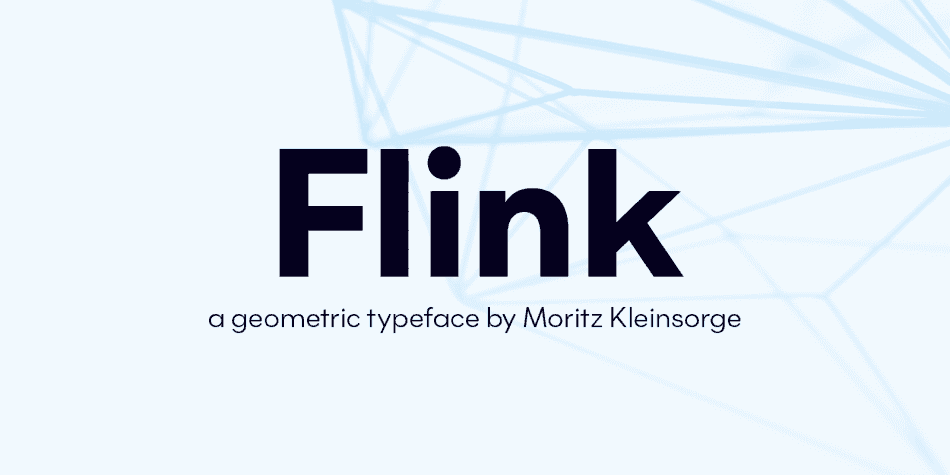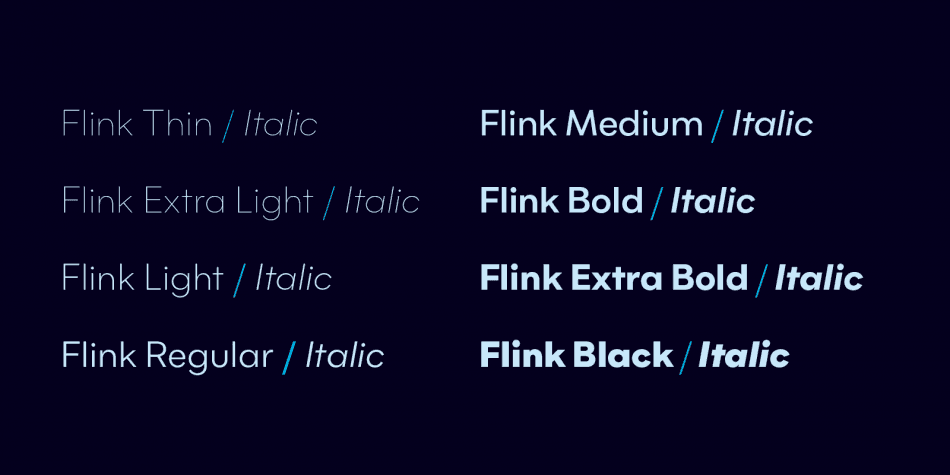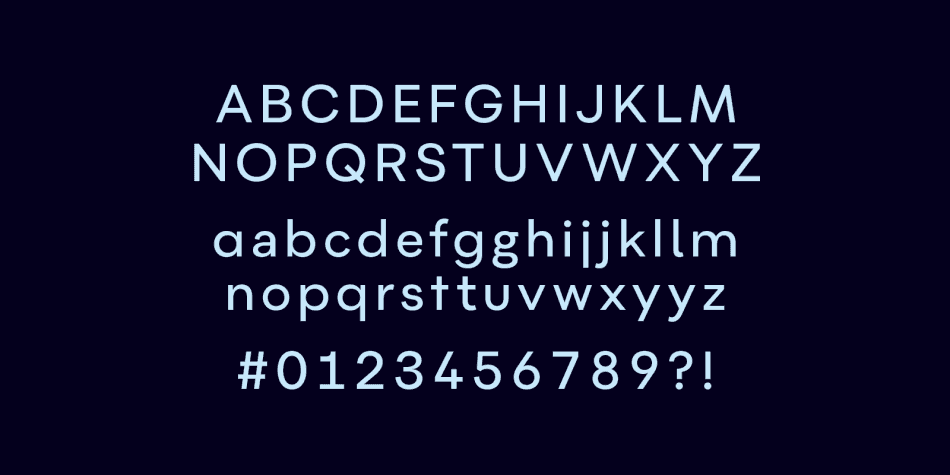
Flink Sans Serif Font Family is now available! Geometric typefaces have long been part of any typographer’s toolbox since their introduction during the 1920s with iconic characters like Futura Erbar and Kabel making an impactful statement about typeface design.